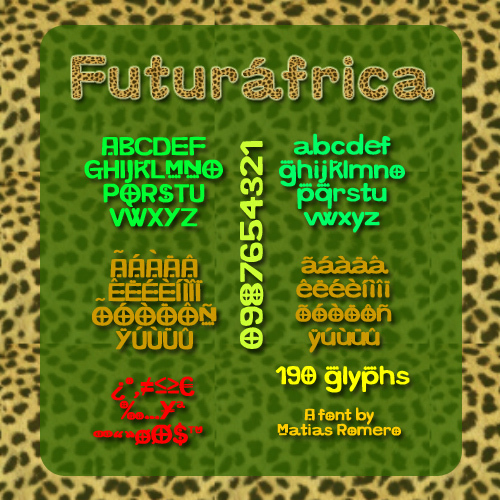
Futurafrica by Matias Romero is a free cartoon display font with broad, irregular letters and a deliberately unruly silhouette. Rounded forms, abrupt angles, and shifting stroke widths make the alphabet feel hand-cut, with small notches and tight interior spaces adding comic tension.
It can turn a title into a playful illustrated emblem. That role suits children's entertainment, festival posters, and music merchandise, where the uneven shapes can echo lively drawings and collage. For food packaging, its oddball contours could give a snack or drink brand a mischievous, handmade identity.